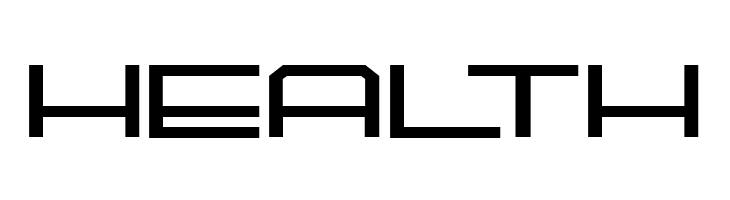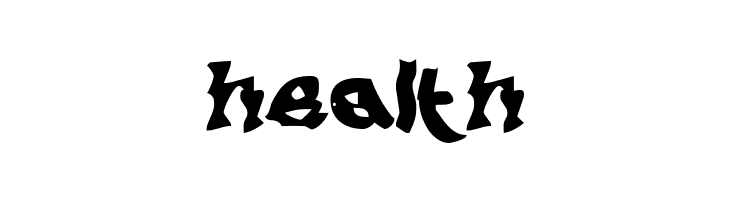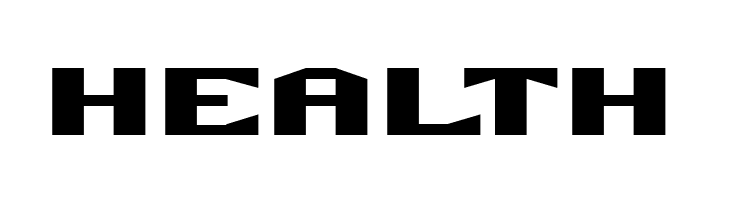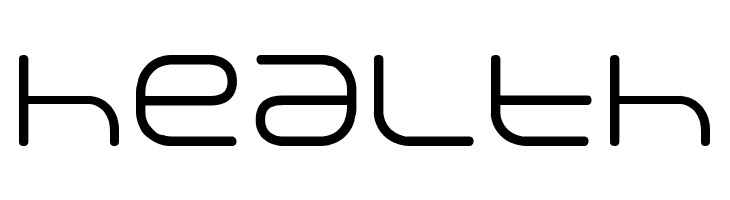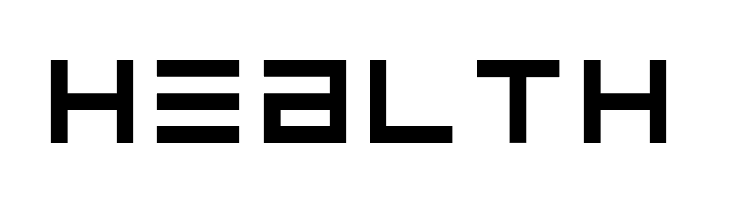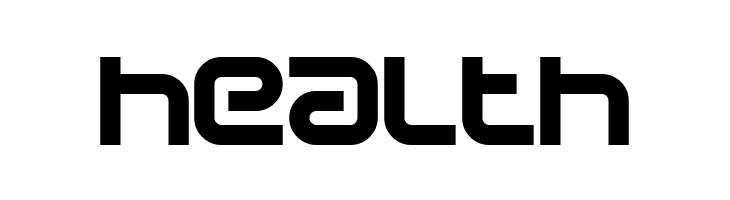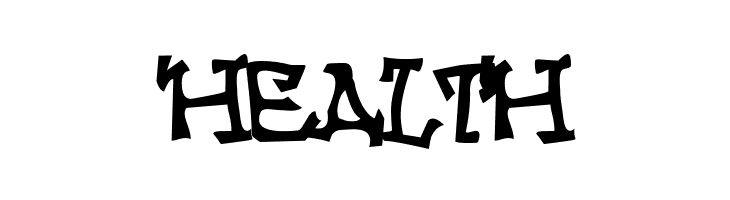
A bold, futuristic font with rounded edges and consistent thickness.
A futuristic, geometric font with rounded edges and unique cutouts.
A geometric, angular font with a modern, futuristic design.
A bold, angular font with a runic, stone-carved aesthetic.
A bold, distressed font with a vintage, rugged texture.
A bold, spray-painted font with a gritty, urban texture.
A bold, athletic typeface ideal for sports-themed designs.
A bold, futuristic font with geometric and digital influences.
A modern, geometric font with clean lines and rounded edges.
A modern, geometric font with rounded edges and a minimalist design.
A modern, geometric font with clean lines and rounded edges.
A bold, geometric font with angular, modern lines.
A futuristic, geometric font with interconnected lines and a sleek design.
A whimsical, hand-drawn font with a modern gothic flair.
A bold, condensed, italic font with a decorative outline and modern appeal.
A bold, patterned font with a playful and modern design.
A decorative font with intricate, ancient-inspired patterns.
A playful, hand-drawn font with bold, rounded characters and a whimsical style.
A geometric, minimalist font with a modern, wireframe aesthetic.
A decorative and whimsical font with bold, swirling elements and intricate detailing.
A bold, geometric decorative font with crescent-like cutouts.
A bold, futuristic font with geometric shapes and sharp angles.
A bold, geometric font with a blocky, uniform design.
A bold, playful font with organic, rounded shapes and exaggerated curves.
A playful, decorative font with rounded serifs and whimsical flourishes.
A pixelated, retro-style font with a digital, 8-bit aesthetic.
A bold, textured font with a rugged, stone-like appearance.